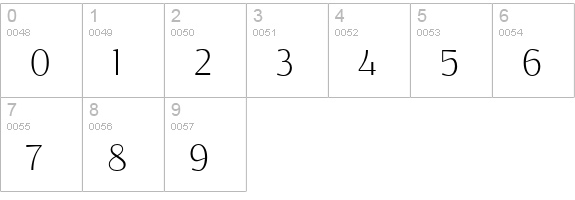
Resagokr Light is a refined, elegant variant in the Resagokr typeface family \xE2\x80\x94 well suited to elegant body text, refined sub-headings, and luxury branding.
Resagokr Light font is a stunning display typeface that exudes elegance and sophistication. With its sleek and slender letterforms, this font is perfect for adding a touch of modernity to any design project. The delicately designed curves and clean lines of Resagokr Light font make it a versatile choice for various applications, including branding, editorial design, and advertising. This font showcases a harmonious balance between minimalism and a contemporary aesthetic, making it ideal for both digital and print mediums. Its light weight adds a sense of openness and airiness, lending a refreshing vibe to any design. What makes Resagokr Light font even more appealing is that it is available for free download at FontsMarket.com. This means that designers and enthusiasts alike can easily access and utilize this remarkable font without any cost. Its availability as a free resource allows for greater creative exploration and experimentation, making it a valuable asset for designers, especially those working on tight budgets. Whether you are working on a logo design, a magazine layout, or a website, Resagokr Light font is sure to elevate your project and leave a lasting impression on viewers. Its versatility, coupled with its freely available download, makes it a must-have font for any designer's toolkit.